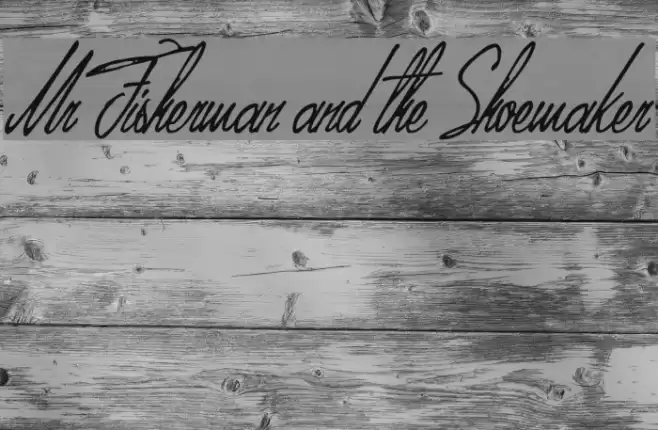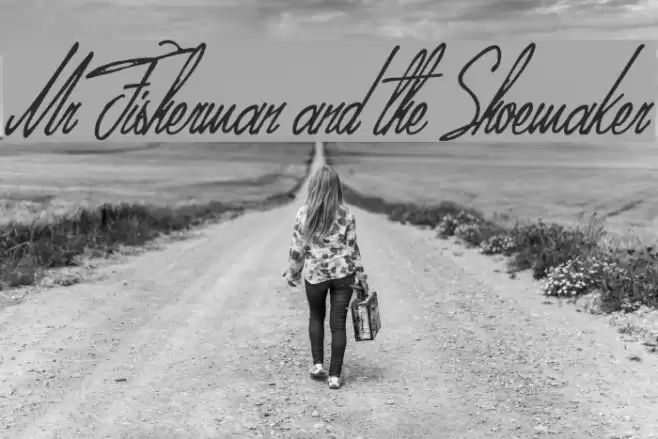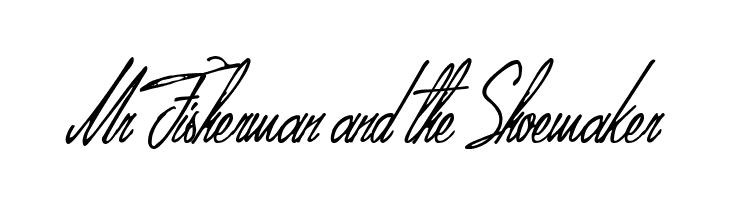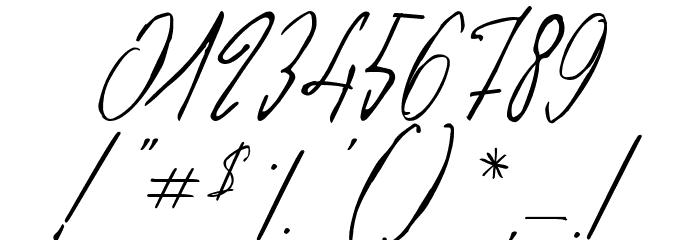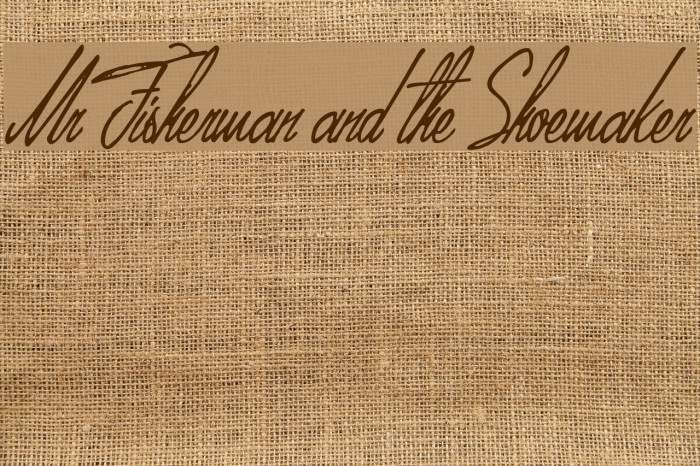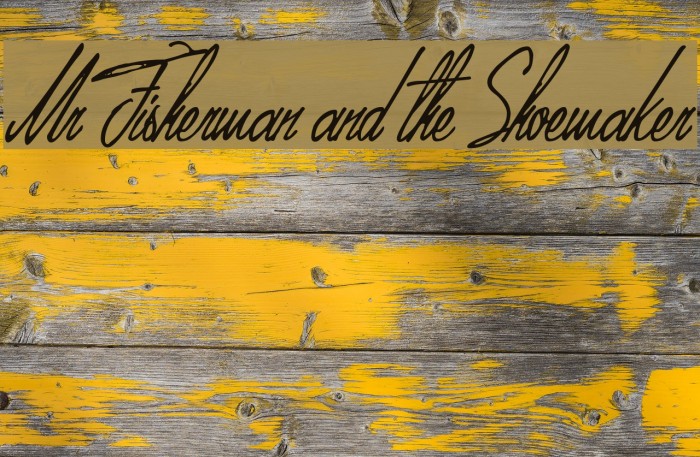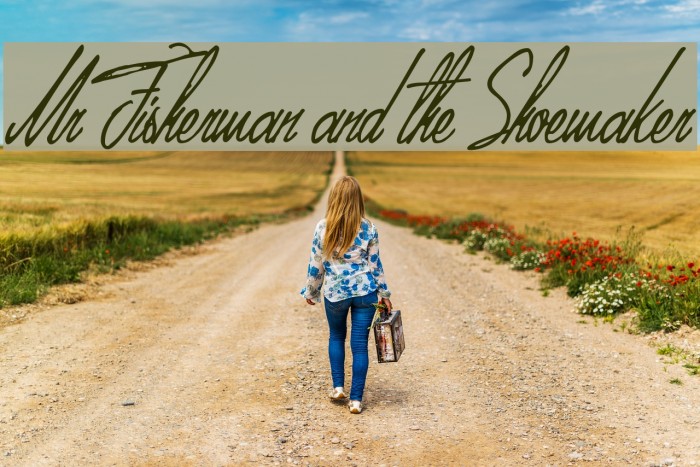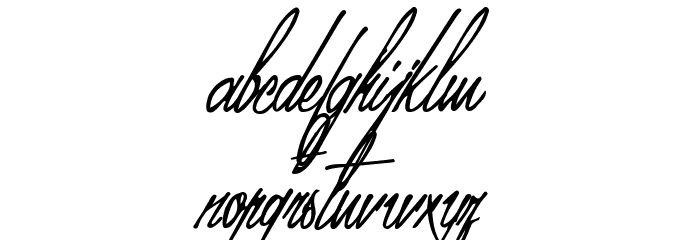
Mr Fisherman and the Shoemaker Font
Mr Fisherman and the Shoemaker Description
This font exudes a dynamic and elegant script style, characterized by its fluid, cursive strokes that mimic the natural flow of handwriting. The letters are interconnected, enhancing the seamless and continuous appearance. The uppercase letters are bold and prominent, while the lowercase letters maintain a graceful and delicate form. The numerals are crafted with a similar flair, ensuring consistency across the character set. Special characters are designed to complement the overall aesthetic, making this font suitable for creative and artistic projects. Its sophisticated style is ideal for conveying a sense of elegance and personal touch.
A dynamic and elegant script font with fluid, cursive strokes from Handwritten fonts.
- Proposed Projects: Perfect for wedding invitations, greeting cards, logos, and branding materials that require a personal and elegant touch.
- Character Spacing: Tight
- Overall Style: Elegant, Artistic
- Use Case: Logos, Invitations, Personal Branding